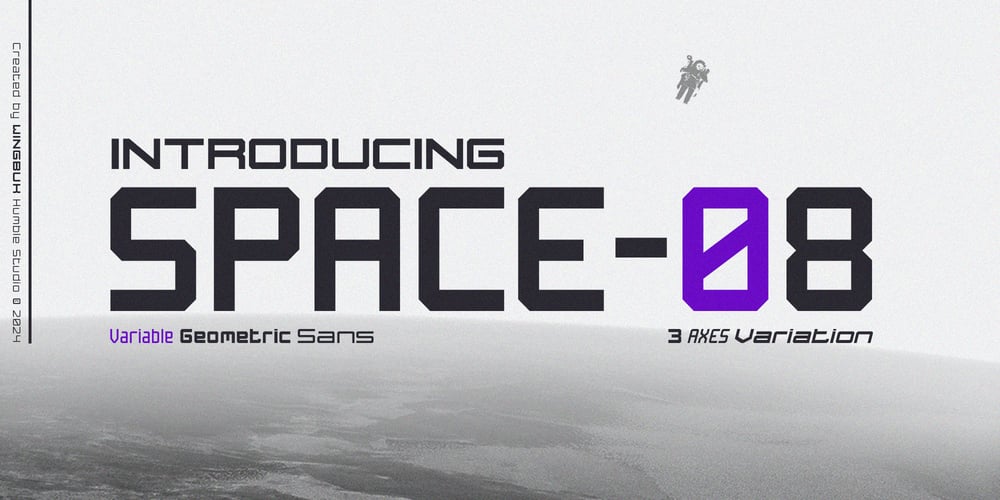
Space Eight
Space Eight font
Space Eight Font Family was designed by Adji Shaka and published by WingBuk Studio. Space Eight contains 1 styles and family package options. Space Eight is a special variable font that we created to support needs with nuances of sports, technology, or things related to outer space, but also perfect for use as support for brands and other products outside the theme. Enjoy !